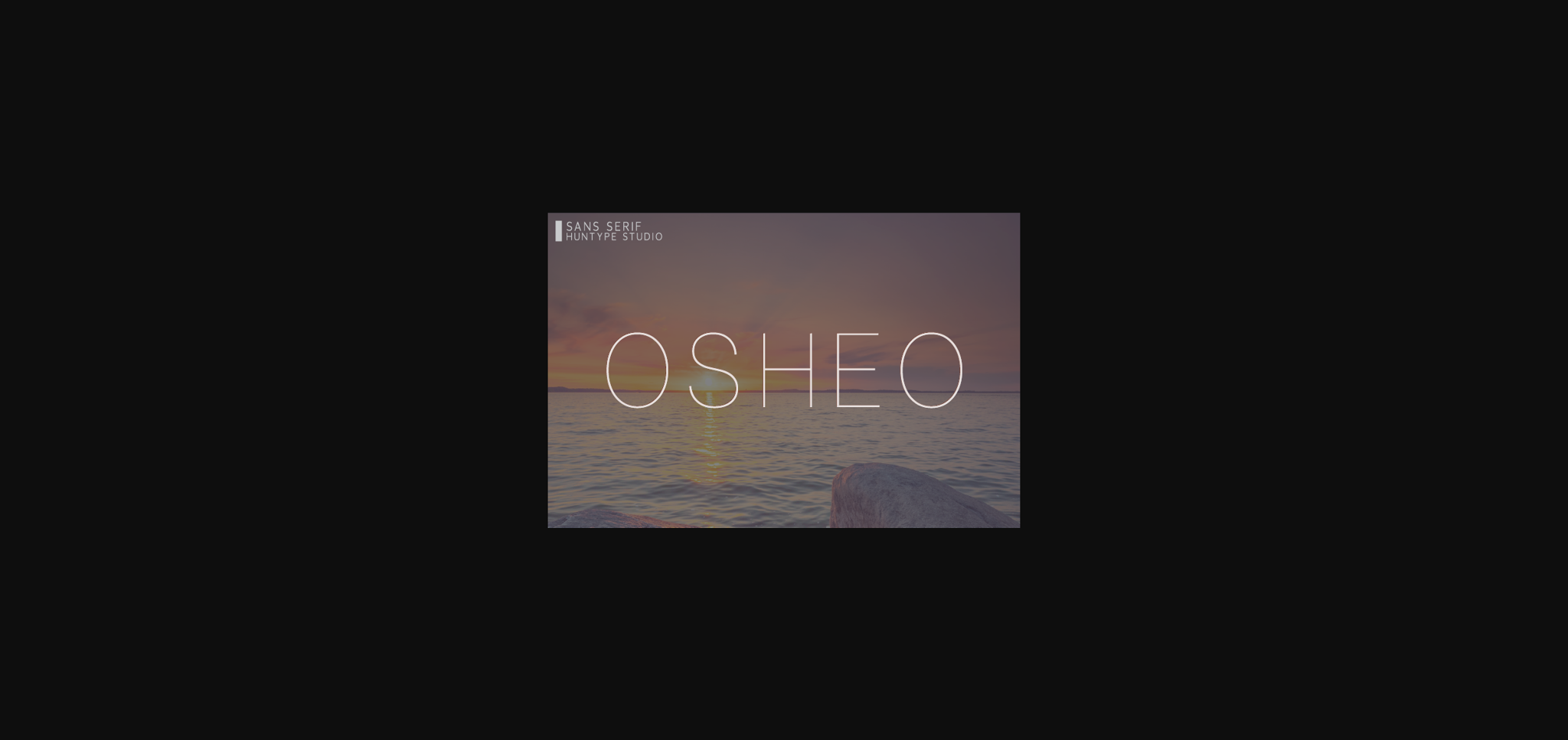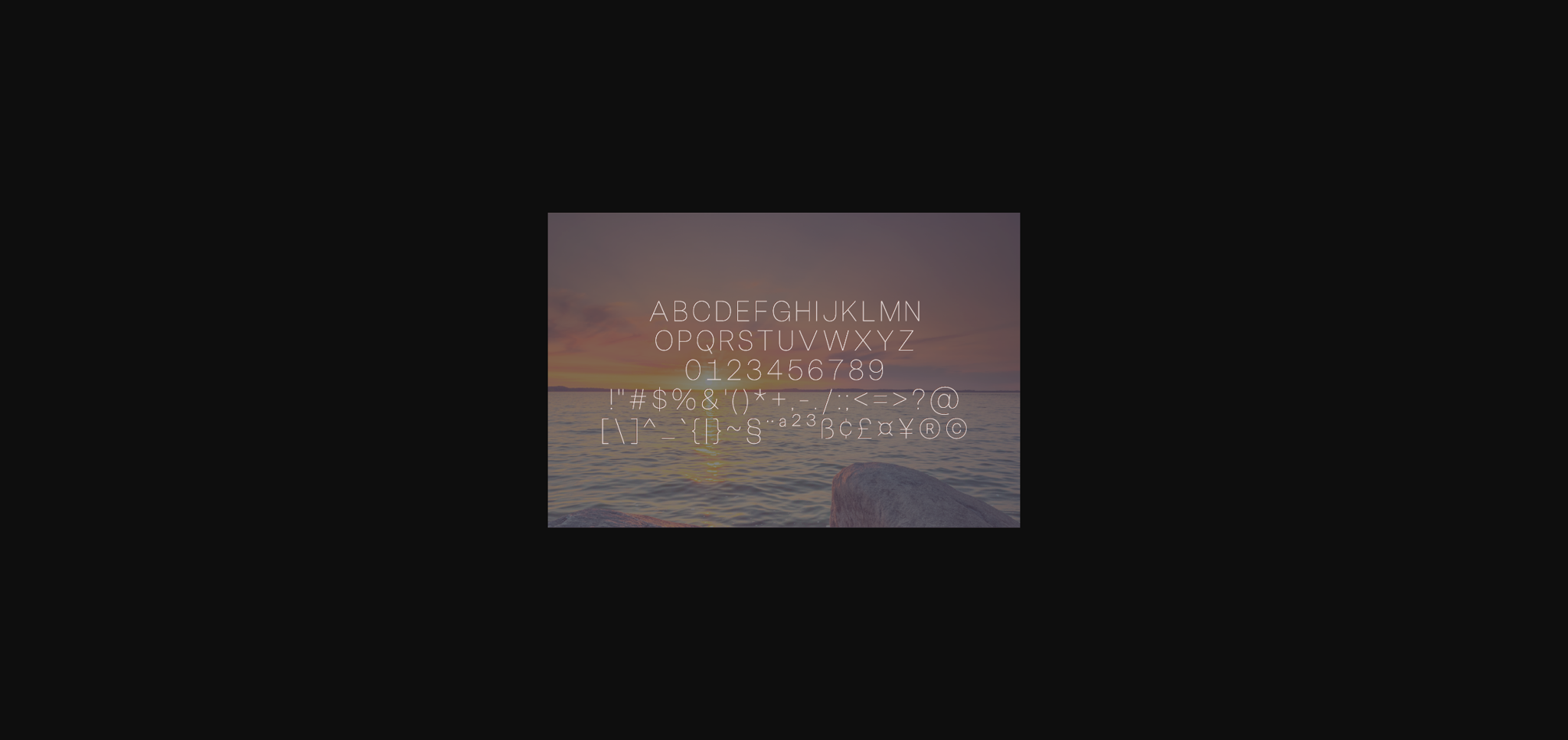
About Osheo Font
Osheo is a round lettered and thin sans serif font. It can effortlessly be matched to a large set of projects, so add it to your creative ideas and notice how it makes them stand out!